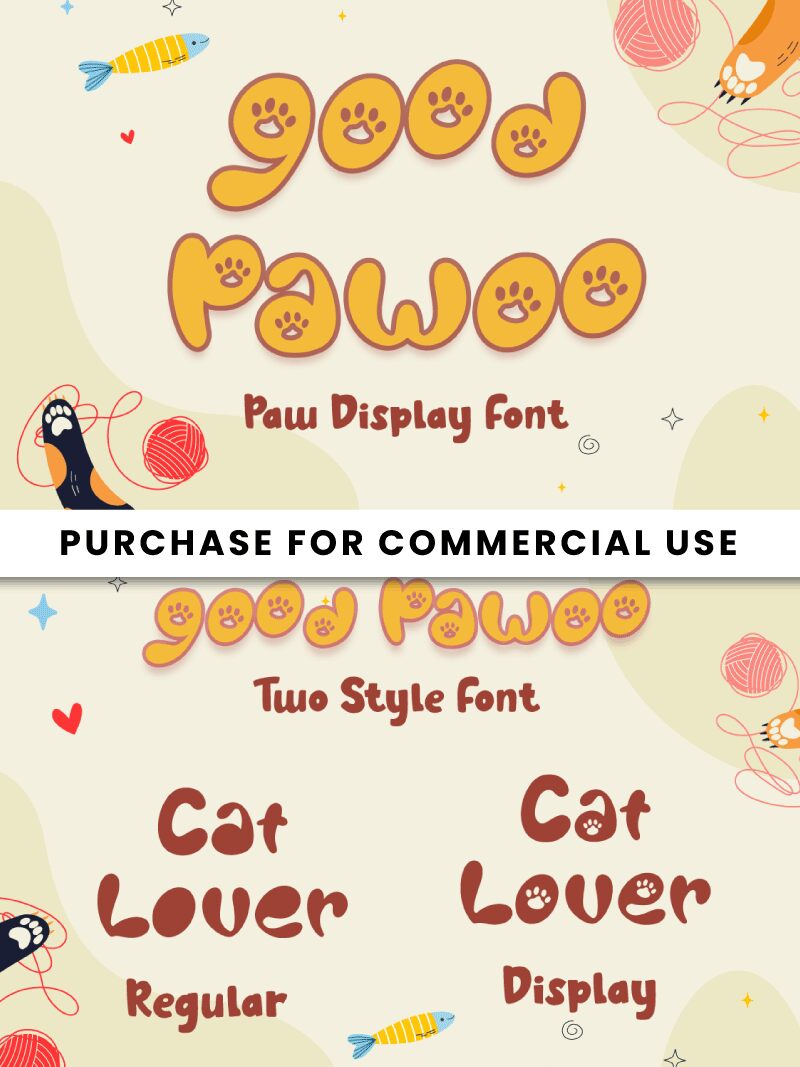
Good Pawoo Display
Good Pawoo Display, crafted by Attype Studio, stands out as a bold and playful choice for those seeking to infuse a touch of whimsy into their creative endeavors. This display font boasts a cartoon style that captures the eye with its friendly and inviting aesthetic. The characters, each carrying a weight that commands attention, are ideal for making statements that are both fun and impactful.
The playful curves and bouncy lines of Good Pawoo Display lend themselves perfectly to projects aimed at children or any context where a sense of joy and light-heartedness is desired. From the pages of children's books to animated movie titles, this font adds personality wherever it appears. Its distinct style is not just visually appealing but also versatile enough to bring an element of charm to branding, product packaging, event posters, and more.
Good Pawoo Display’s unique characteristic—a paw print playfully embedded in one of its letters—hints at its potential use in pet-related industries or animal-themed events. However, its appeal is not limited; it's equally effective in any setting where the goal is to create a friendly and engaging atmosphere. With Good Pawoo Display, your message won't just be seen—it will be felt with the same warmth and enthusiasm that this typeface embodies.